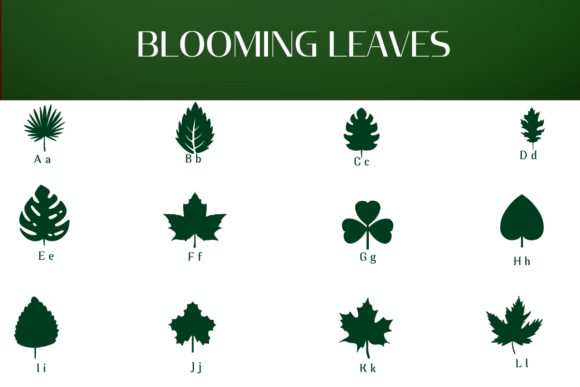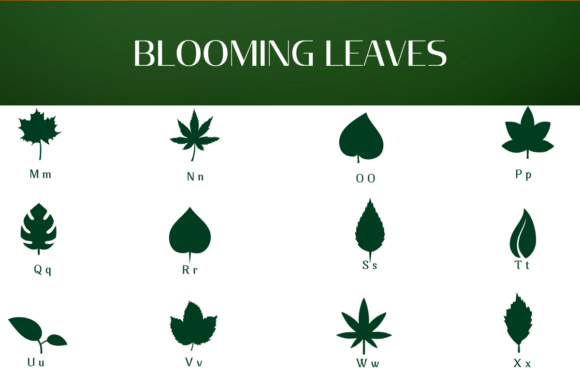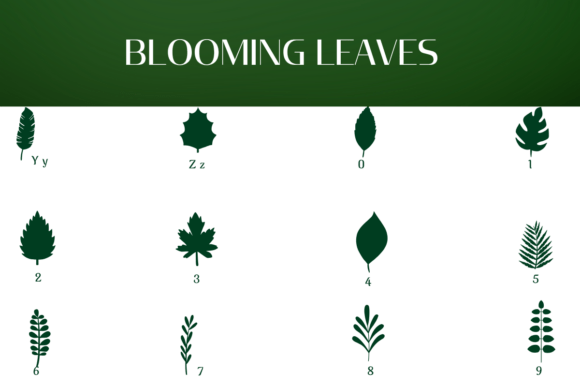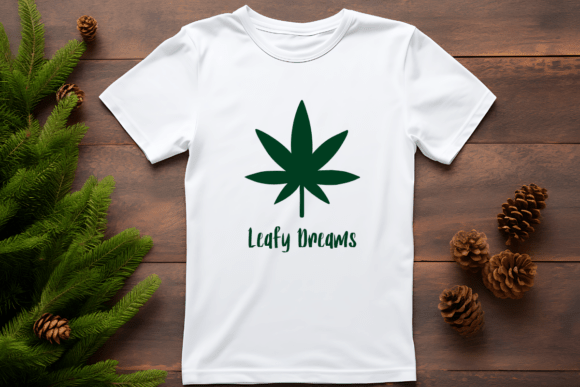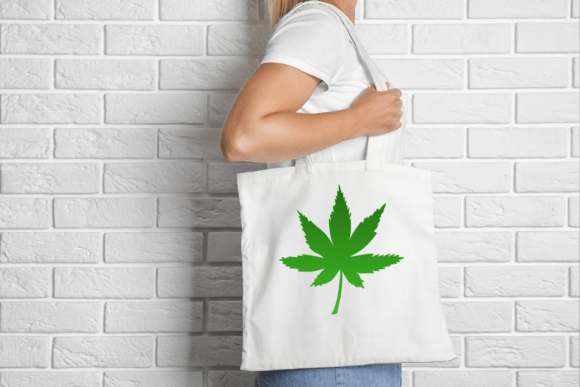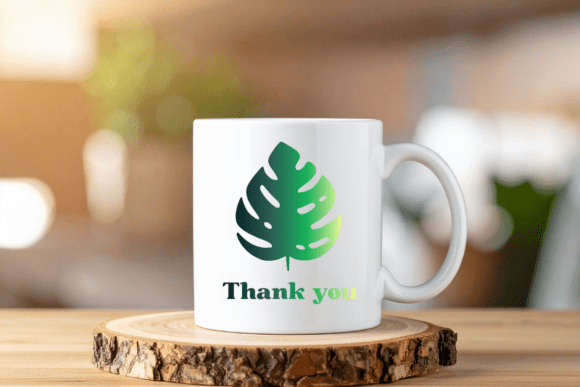
Blooming Leaves Font: Elevate Your Designs with Nature’s Elegance
Are you a designer or crafter looking for a unique and versatile font to bring a touch of nature to your projects? Look no further than Blooming Leaves, a beautifully curated dingbat font featuring a wide variety of leaf silhouettes. From tropical monstera and palm fronds to classic maple and oak leaves, this font offers a stunning collection of botanical shapes ideal for eco-friendly designs, organic product packaging, seasonal projects, and educational materials.
A Diverse Collection of Leaf Silhouettes
Blooming Leaves font boasts an impressive range of leaf designs, carefully crafted to cater to various design needs. Whether you’re working on a spring-themed project or a nature-based brand, this font has got you covered. The collection includes:
- Tropical leaves: Monstera, palm fronds, and other exotic leaf shapes to add a touch of paradise to your designs.
- Classic leaves: Maple, oak, and other traditional leaf silhouettes for a timeless look.
- Seasonal leaves: Leaves specifically designed for spring, summer, fall, and winter projects, ensuring your designs stay relevant and fresh throughout the year.
Crafting with Precision: Crisp, Vector-Style Glyphs
The Blooming Leaves font features crisp, vector-style glyphs that are fully scalable, ensuring they remain sharp and clear in any design. These high-quality glyphs can be used in a variety of applications, including:
- Logos: Create a lasting impression with custom logos that incorporate the beauty of nature.
- Stickers: Design stickers that showcase the intricate details of leaves, perfect for eco-friendly products or seasonal crafts.
- Nature-themed crafts: Add a touch of elegance to your crafts, such as paper cutouts, laser cuts, or hand-drawn designs.
- Digital assets: Use the font in digital assets like social media graphics, blog posts, or website headers to bring a touch of natural beauty to your online presence.
Eco-Friendly and Organic Design Inspiration
Blooming Leaves font is perfect for designers and crafters looking to create eco-friendly and organic designs. The font’s natural, botanical shapes evoke a sense of sustainability and harmony with nature. Use it to create:
- Eco-friendly product packaging: Add a touch of nature to your product packaging, conveying a commitment to sustainability.
- Organic branding: Develop a brand identity that reflects a connection to the natural world.
- Seasonal marketing materials: Create eye-catching marketing materials for seasonal campaigns, such as Earth Day or World Environment Day.
Educational Materials and Infographics
Blooming Leaves font is also an excellent choice for educational materials and infographics. The font’s clear and concise glyphs make it perfect for:
- Botany and biology lessons: Teach students about different leaf types and their characteristics.
- Ecology and environmental science: Illustrate the importance of conservation and sustainability.
- Infographics: Create engaging and informative infographics about nature, conservation, and the environment.
Why Choose Blooming Leaves Font?
Blooming Leaves font offers a unique combination of versatility, quality, and natural elegance. Here are just a few reasons why designers and crafters love this font:
- Unique and diverse collection of leaf silhouettes.
- Crisp, vector-style glyphs for high-quality designs.
- Fully scalable for use in various applications.
- Ideal for eco-friendly designs, organic product packaging, and educational materials.